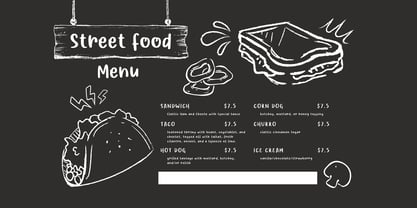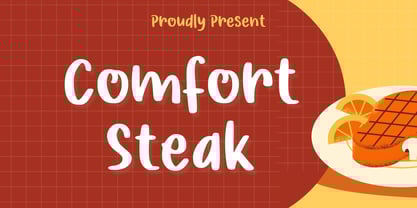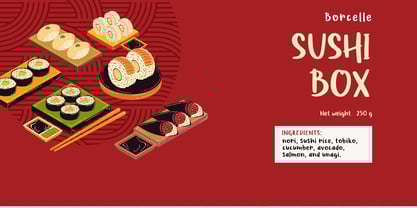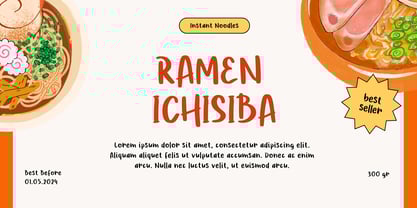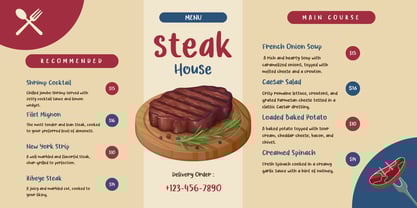
Comfort Steak
by Aisyah
The Comfort Steak Font Family was designed by Nur Aiysah Amalia and published by Aisyah. Comfort Steak contains 1 styles.
Introducing "Comfort Steak," a dynamic and audacious typeface tailored to infuse creativity into any project. With its robust styling, this font is apt for enterprise or crafting exploits. Its contemporary edge lends a unique flair, defining your work with sophistication and ingenuity - a perfect font for those looking to distinguish their designs with a splash of individuality.